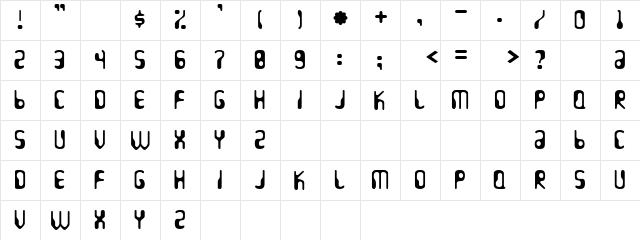
Power Cut Regular
Design Context for Power Cut Typeface
Power Cut has the bold swagger of sports branding: strong, assertive letterforms designed to dominate headlines and jerseys alike.
A natural choice for gym brands, fantasy sports, jersey lettering, and action-driven headlines.
Pro Tip: Use Power Cut in all-caps headlines where its athletic energy can fully express itself. Pair with a solid, simple sans for supporting text.